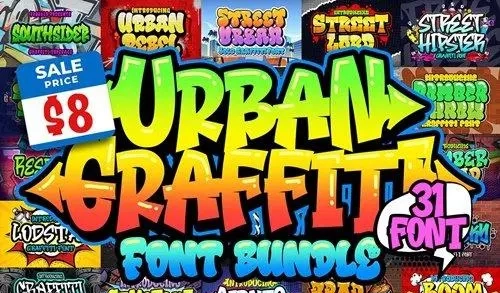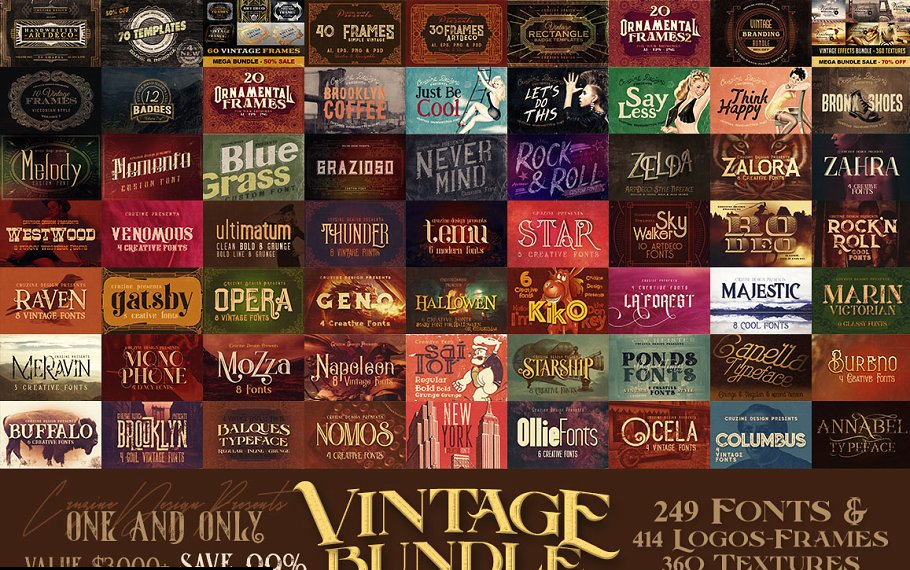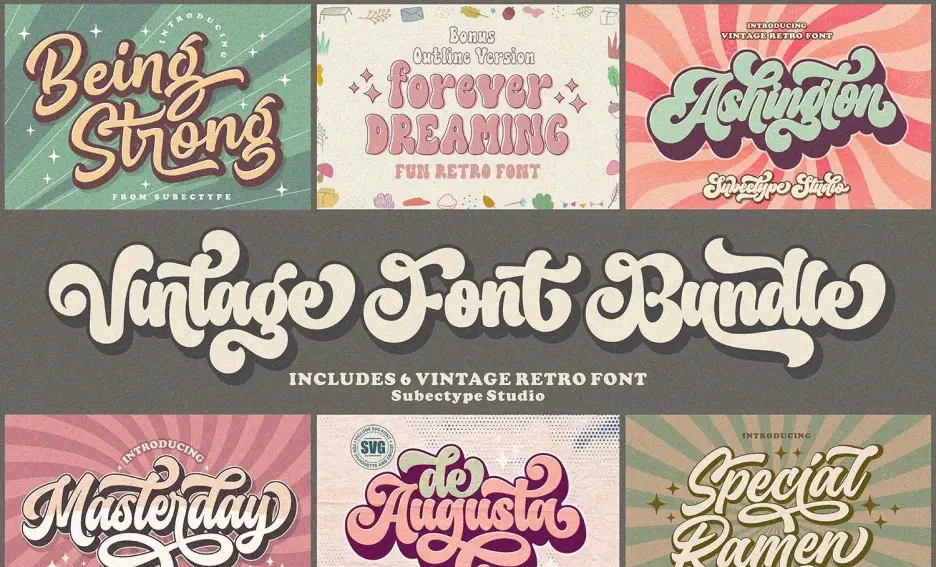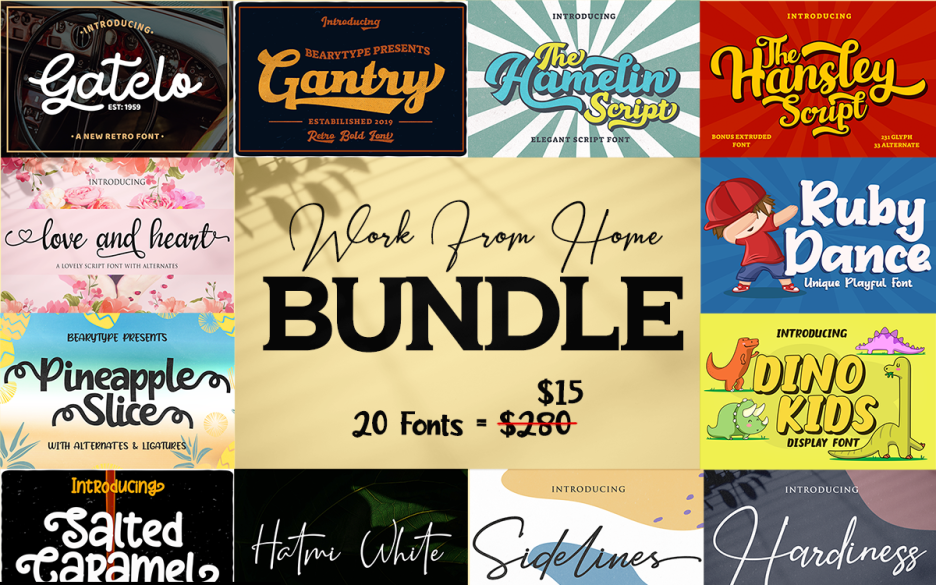
20 Must-Have Font Bundles for Designers from Brushespack Collection Part 148 🎨✨
Welcome back, creative souls! 🖌️ Today, I am beyond excited to dive into the latest treasure trove from Brushespack Collection Part 148. Whether you’re designing a chic wedding invitation, a bold product package, or a vintage-inspired logo, the right typeface is your superpower. I’ve handpicked 20 incredible font bundles that will transform your workflow and make your art pop like never before! 🚀
Why Use These Font Bundles?
Typography is the silent voice of your design. A killer font bundle saves you time, money, and creative fatigue by offering a curated library of styles—from elegant scripts to rugged vintage displays—all in one click. Plus, with premium formats like OTF, TTF, and WOFF, you’re future-proofing your projects for print, web, and everything in between. 🎨✨
Top 20 Font Bundle Picks
Packaging Font Bundle – 53 Premium Fonts (Special Edition)
Fifty-three incredible fonts tailored for packaging? Yes, please! This special edition is a designer’s dream, blending serifs, scripts, and display faces to make product labels and boxes look absolutely irresistible. 🌟📦
Font Bundle Collection – 13 Premium Fonts
Compact but mighty, this bundle of 13 premium fonts offers a perfect mix of serif, sans-serif, and script styles. Ideal for versatile designers who want quality without the clutter! 😍🔤
Hand Picked Font Bundle 3
Curated with love, this bundle brings you unique typefaces that feel both fresh and timeless. From playful scripts to bold serifs, it’s the ultimate toolkit for creative freedom! 🎯✨
Font Collection Bundle 2
Another stellar selection from Brushespack! This bundle features a diverse range of versatile typefaces—from elegant serifs to modern sans-serifs—perfect for any creative challenge. 🌈📝
Font Bundle-25 In 1
Twenty-five unique font styles in one epic bundle! With multiple weights and variations, you’ll never run out of options for headlines, body text, or logos. Absolute gold! 💰🔥
Creativemarket – The Font Box Mini
A mini treasure chest of typography! This curated pack includes serifs, scripts, and display faces that work wonders for branding, logos, and web projects. Tiny but fierce! 💥📦
The Wonderful Crafty Font Bundle – 47 Premium Fonts
Calling all crafty designers! With 47 fonts ranging from elegant scripts to bold displays, this bundle is your go-to for DIY projects, stationery, and whimsical branding. ✂️🎨
The Wedding Collection Font Bundles
Say “I do” to the most romantic font collection ever! Featuring elegant scripts, modern sans-serifs, and classic serifs, it’s perfect for invitations, signage, and save-the-dates. 💍🌸
The Special Swashes Font Bundle
Get ready to add some serious flair! This bundle is packed with decorative fonts featuring gorgeous swashes that make any design look elegant and premium. OTF, TTF, and WOFF included! 🖋️✨
Vintage Font Bundle 2
Step back in time with these beautifully aged typefaces! Featuring serifs, scripts, and sans-serifs with tons of character, it’s perfect for retro branding and posters. 📜🕰️
The Modern Script Collection – 20 Premium Fonts
Script lovers, this one’s for you! With 20 beautifully crafted script fonts blending sophistication and contemporary vibes, your designs will look ultra-chic. 💃✍️
Vintage Bundle 249 Fonts & 414 Logos
This is the ULTIMATE vintage lover’s paradise! A jaw-dropping 249 fonts plus 414 logos—perfect for building a cohesive retro brand identity from scratch. 🏆🎩
Vintage Retro Font Bundle
Nostalgia never looked so good! This bundle is packed with retro script, serif, and display fonts that evoke timeless charm and personality. 🌟📺
The Retro & Vintage Font Bundle – 17 Fonts
Seventeen unique fonts radiating nostalgia! From bold display to classic serifs, this bundle adds instant character to any project. 🎬🕶️